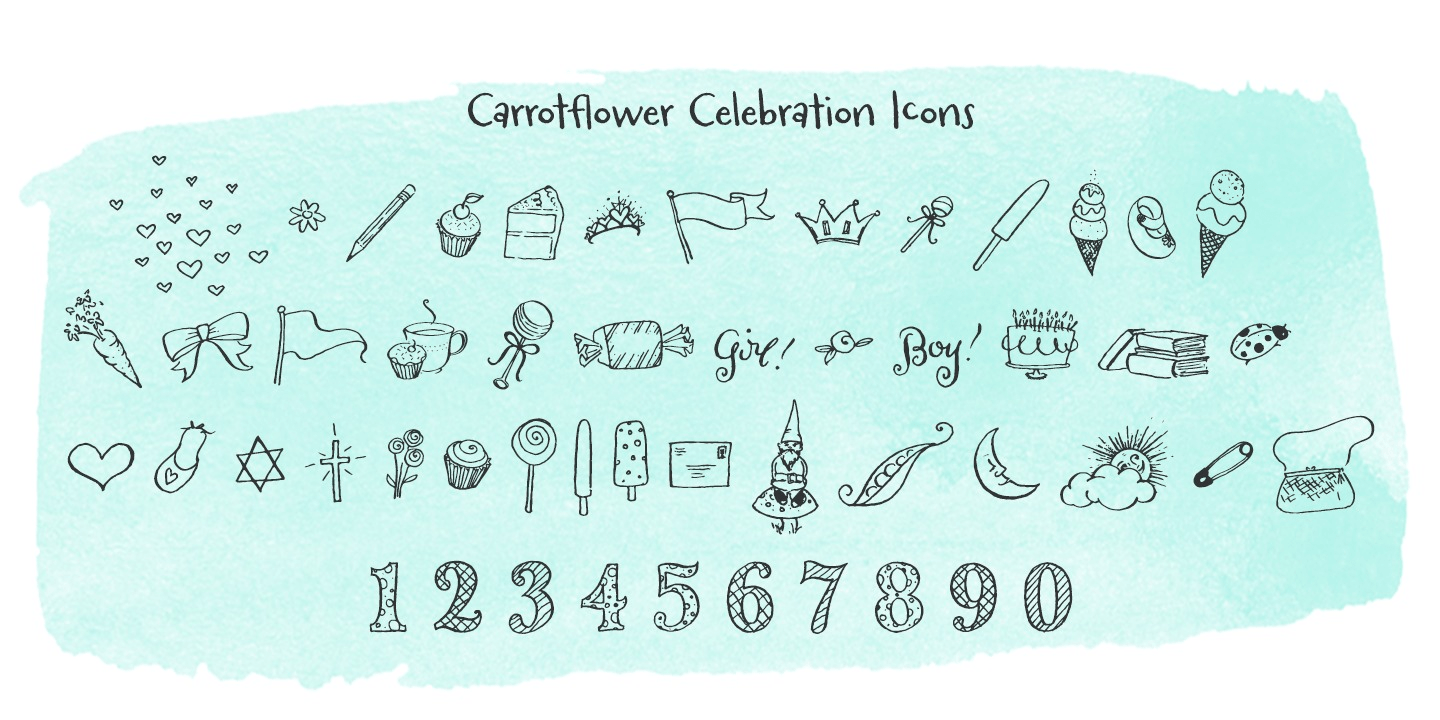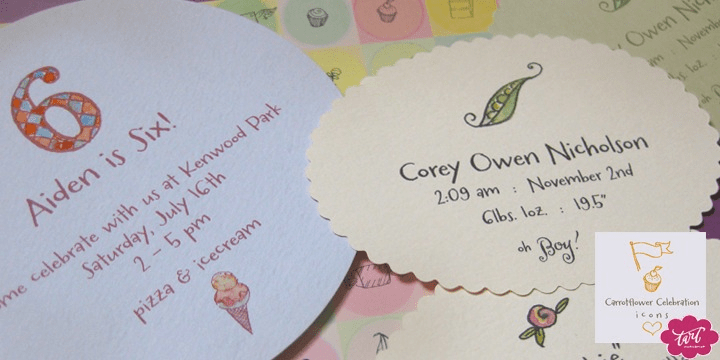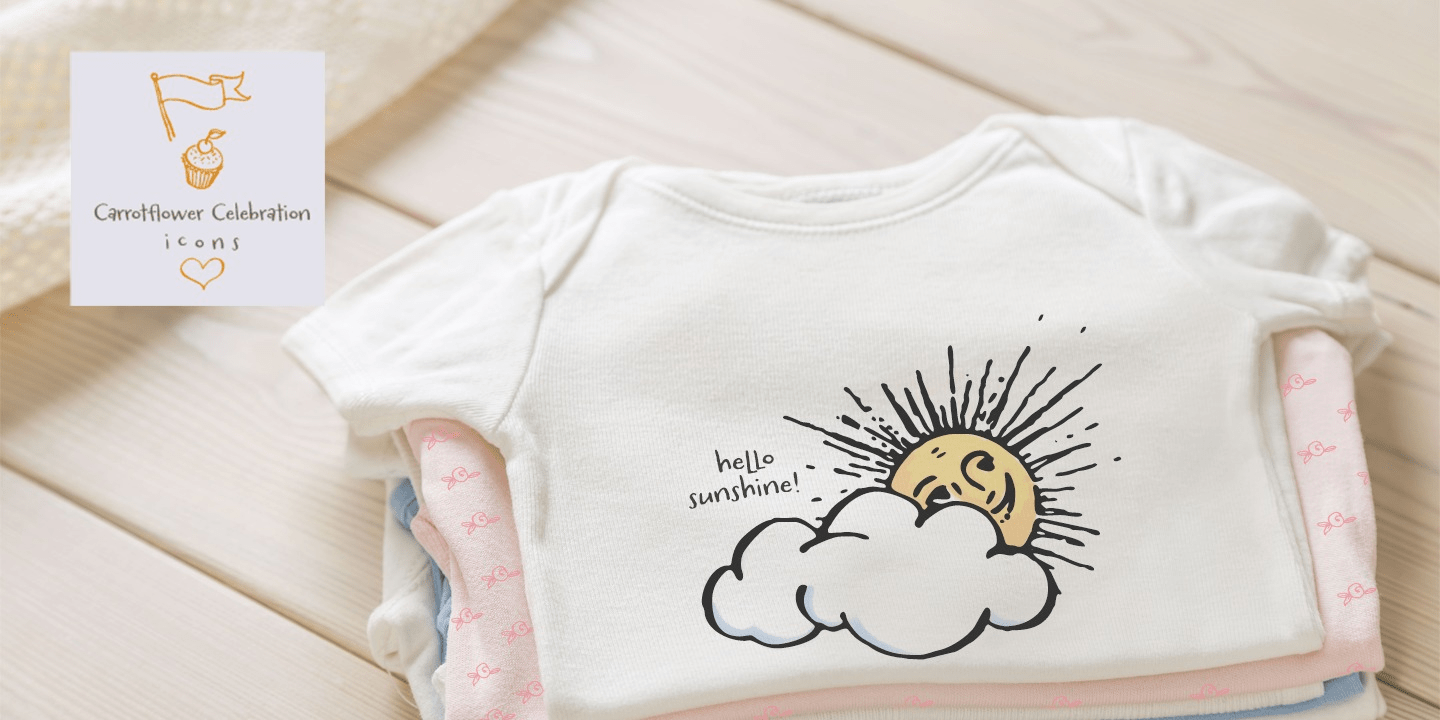
Carrotflower Celebration
About Carrotflower Celebration
Celebrate good times with Carrotflower. This collection of icons was designed with birth announcements and birthday parties in mind. Filled with 49 different icons it is a cheerful asset in creating for teacher\’s gifts, bar or bat mitzvahs, christenings…